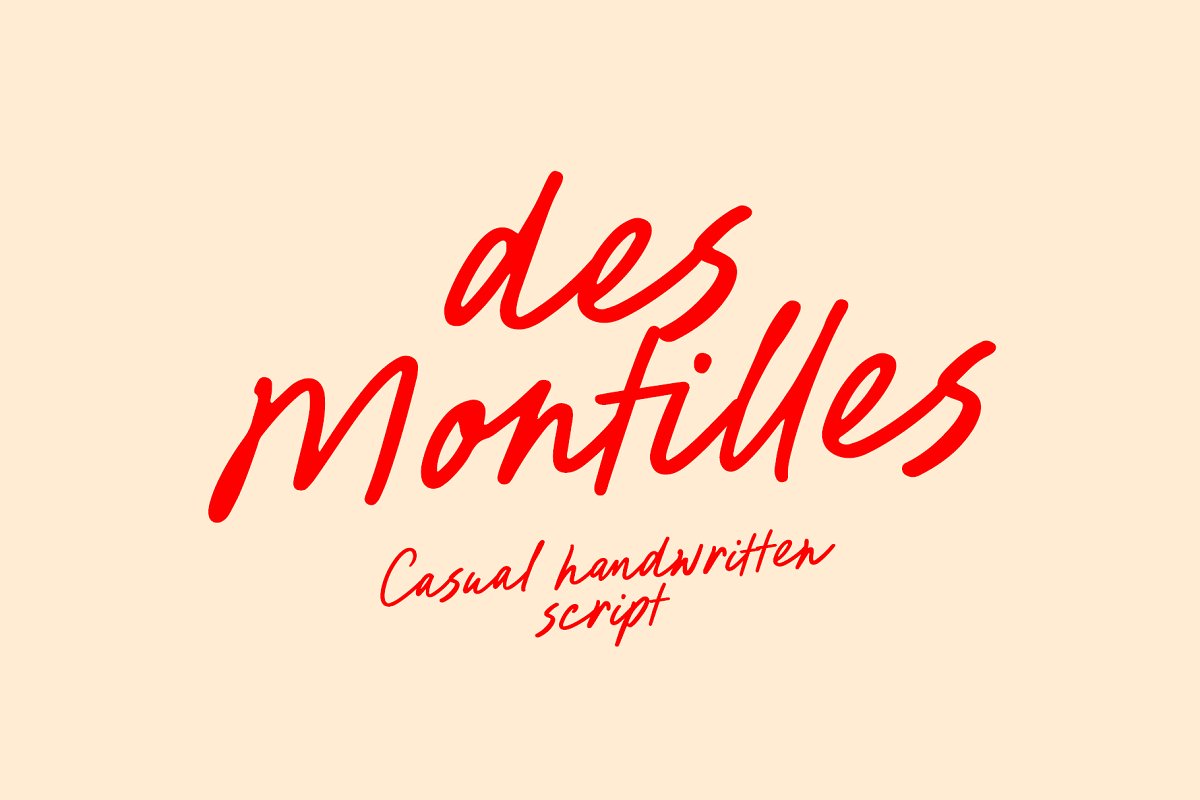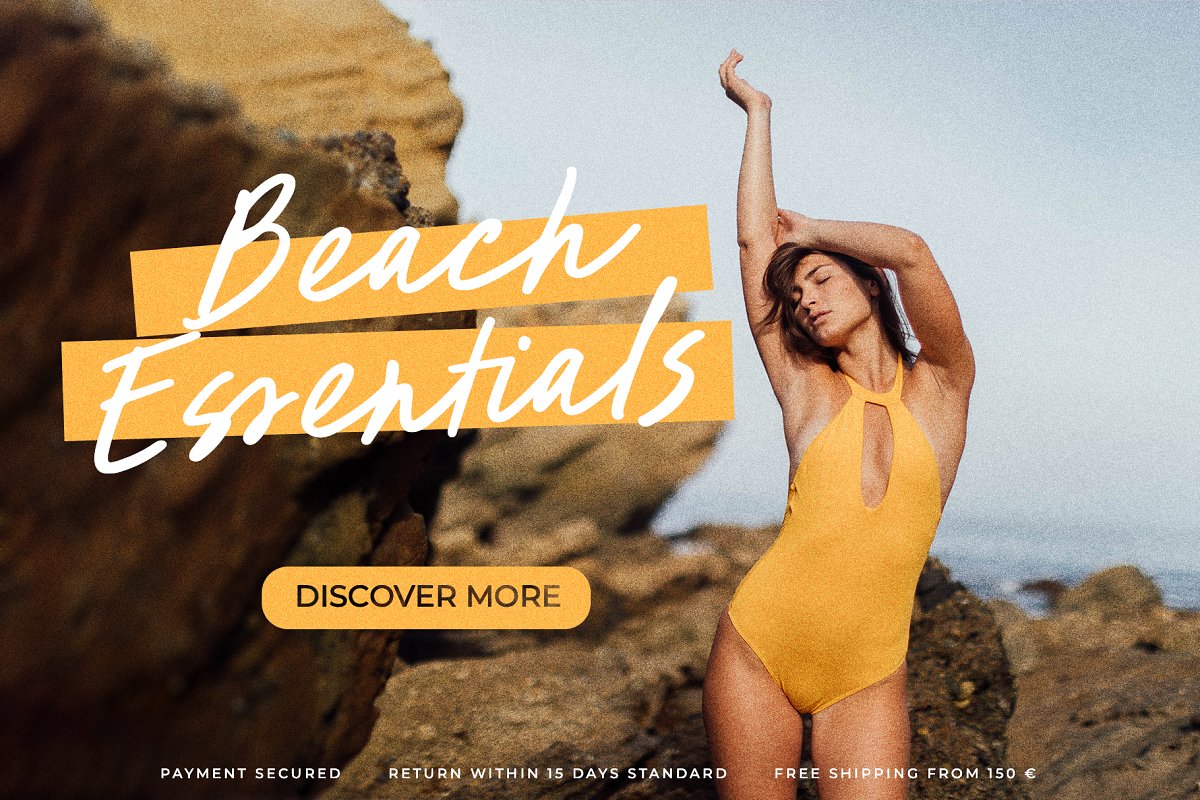
About the Des Montilles Handwritten Script
Des Montilles is a casual handwritten font, Perfect for greeting cards, wedding stationery, photographer watermarks logos, modern websites, apparel design and more, Des Montilles features handwritten ligatures, beginning and end swashes for lowercase letters and heart connectionsThanks so much for checking out my shop, and please get in touch if you have any questions! Des Montilles Font Features:Full Set of standard alphabet and punctuationHandwritten ligaturesPUA Encoded – no special software needed to access extra charactersMultilingual Characters AÁĂÂÄÀĀĄÅÃÆBCĆČÇĊDÐĎĐEÉĚÊËĖÈĒĘẼFGĞĢĠḠHĦIIJÍÎÏİÌĪĮĨJKĶLĹĽĻŁMNŃŇŅÑ OÓÔÖÒŐŌØÕŒPÞQRŔŘŖSŚŠŞȘẞTŤŢȚUÚÛÜÙŰŪŲŮŨVWẂŴẄẀXYÝŶŸỲỸZŹŽŻ aáăâäàāąåãæbcćčçċdðďđeéěêëėèēęẽfgğģġḡhħiıíîïìijīįĩjȷkķlĺľļłmnńňņñoóôöòőōøõœpþ qrŕřŗsśšşșßtťţțuúûüùűūųůũvwẃŵẅẁxyýŷÿỳỹzźžż